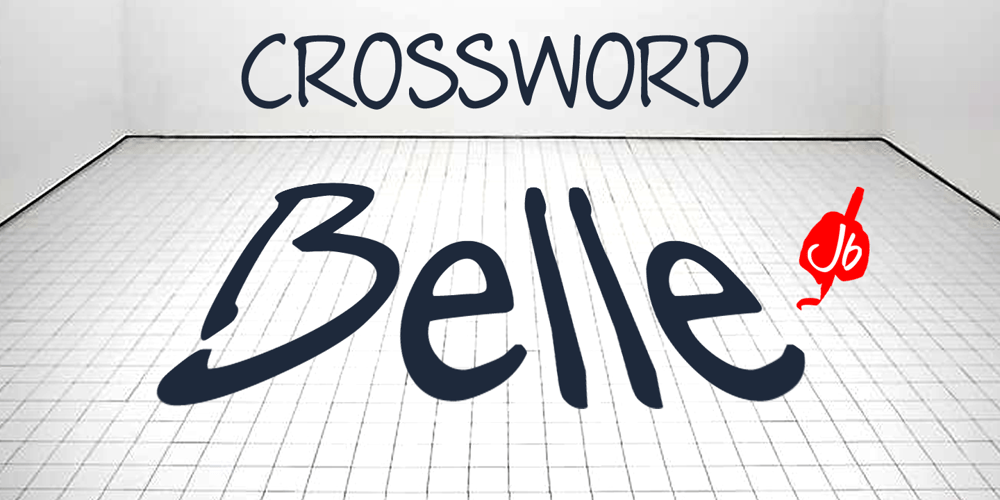
CrosswordBelle Font Family was designed by Jeroen “Joebob” van der Ham and published by JOEBOB graphics. CrosswordBelle contains 1 styles and family package options. A neat and clean-cut little sister for the grungy crosswordBill font. Try CAPS only too!